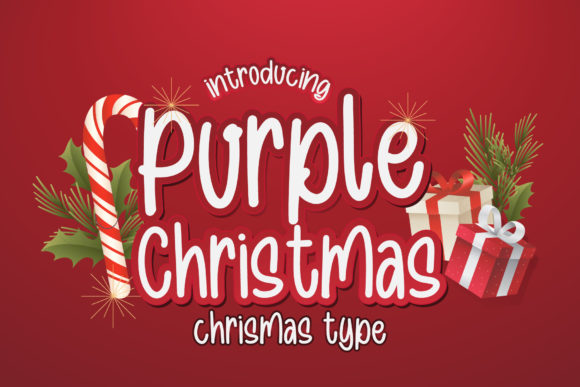
Journey into a world of festive enchantment with Purple Christmas Font, a display font designed to ignite the spirit of joy and creativity within you.
Picture yourself crafting heartwarming holiday cards, each one adorned with the delicate and playful strokes of Purple Christmas. Its friendly and elegant character dances across the page, evoking a sense of warmth and inviting a smile with every word.
With Purple Christmas, your crafting projects will blossom into masterpieces. Its rich and vibrant presence adds a touch of magic to any design, whether you're creating posters, invitations, or adding a festive flair to your digital creations.
The font's versatility extends beyond the holiday season, making it an indispensable tool for any creative endeavor. Its fresh and romantic style lends itself perfectly to branding, marketing materials, and any project that calls for a touch of elegance.
Immerse yourself in the creative possibilities that await with Purple Christmas Font. Let your imagination soar as you transform ordinary words into works of art, capturing the hearts of your audience with every stroke.